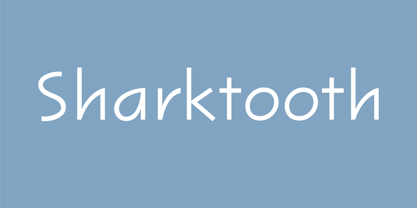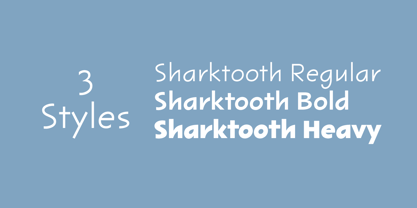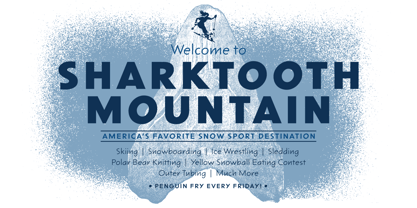
Sharktooth™
por Mark Simonson Studio
La familia tipográfica Sharktooth fue diseñada por Mark Simonson y publicada por Mark Simonson Studio. Sharktooth contiene 3 estilos. Más información sobre esta familia
Sharktooth is a somewhat geometric design based loosely on the designer's earlier typeface Felt Tip Roman (licensed to DsgnHaus). It suitable for either for display or text.
Diseñadores: Mark Simonson
Fundición: Mark Simonson Studio